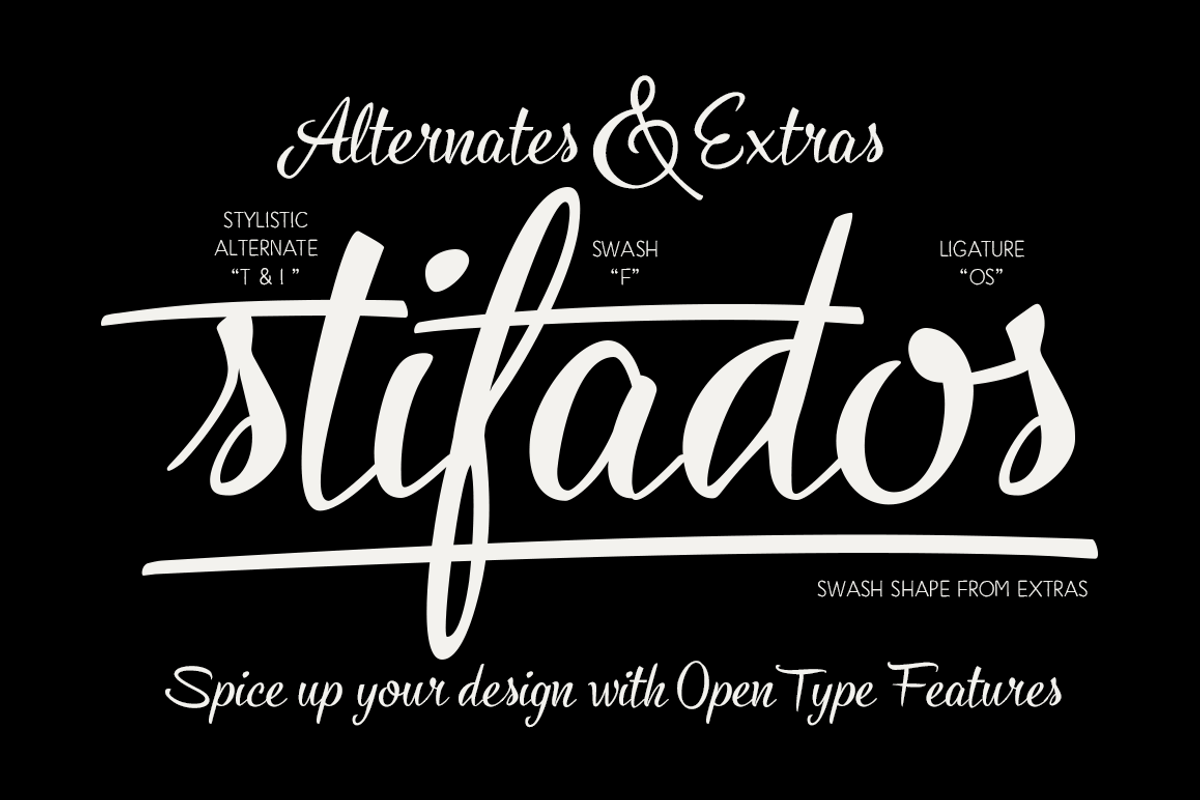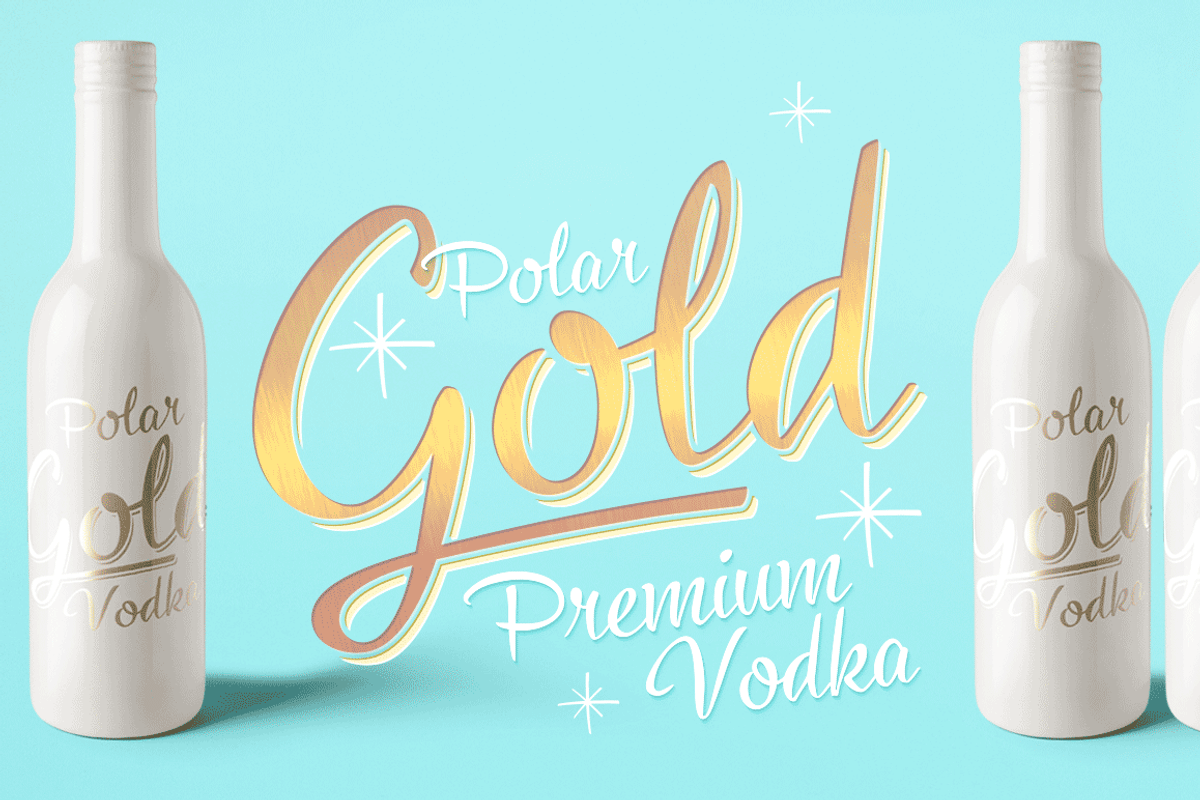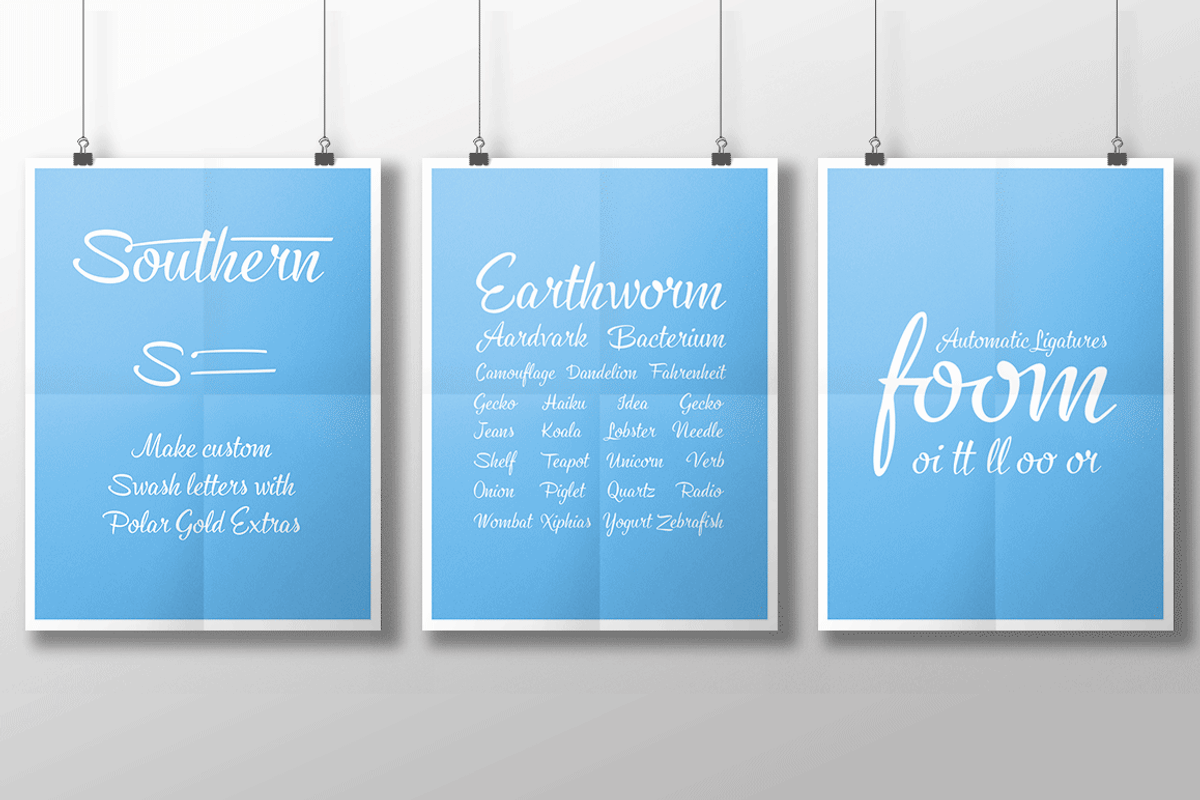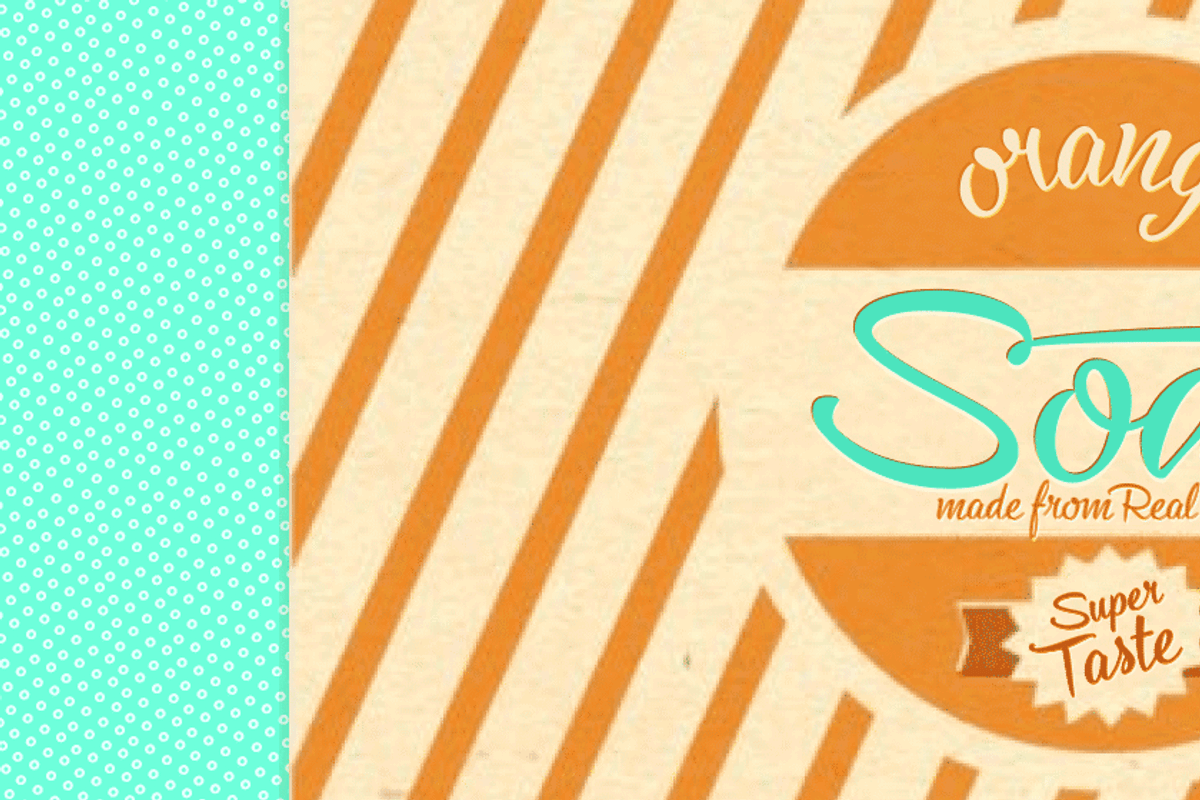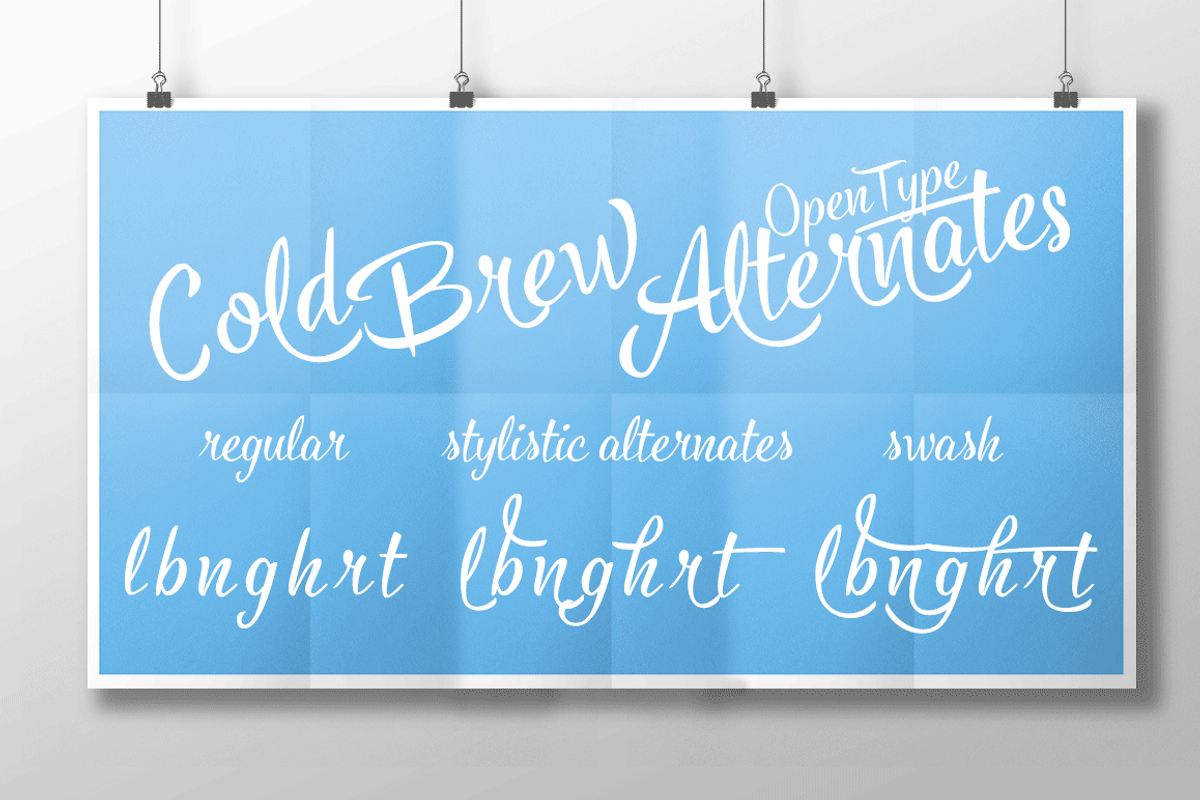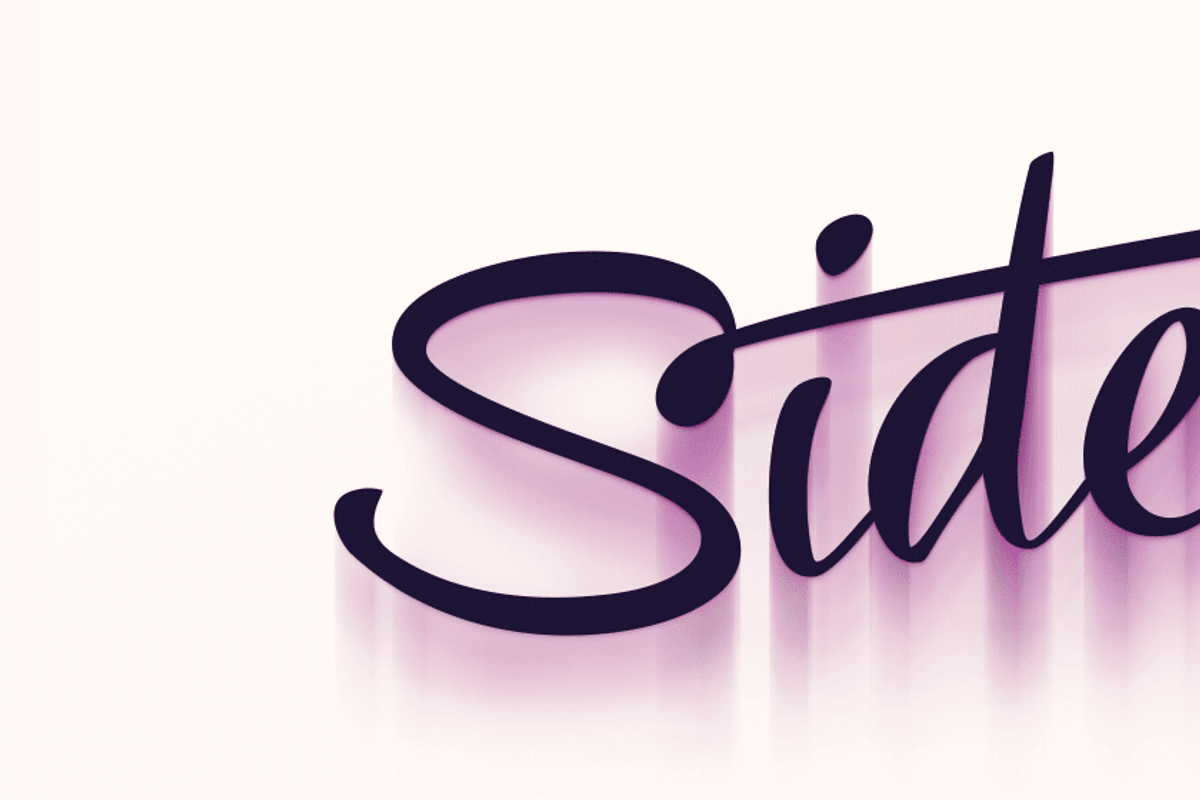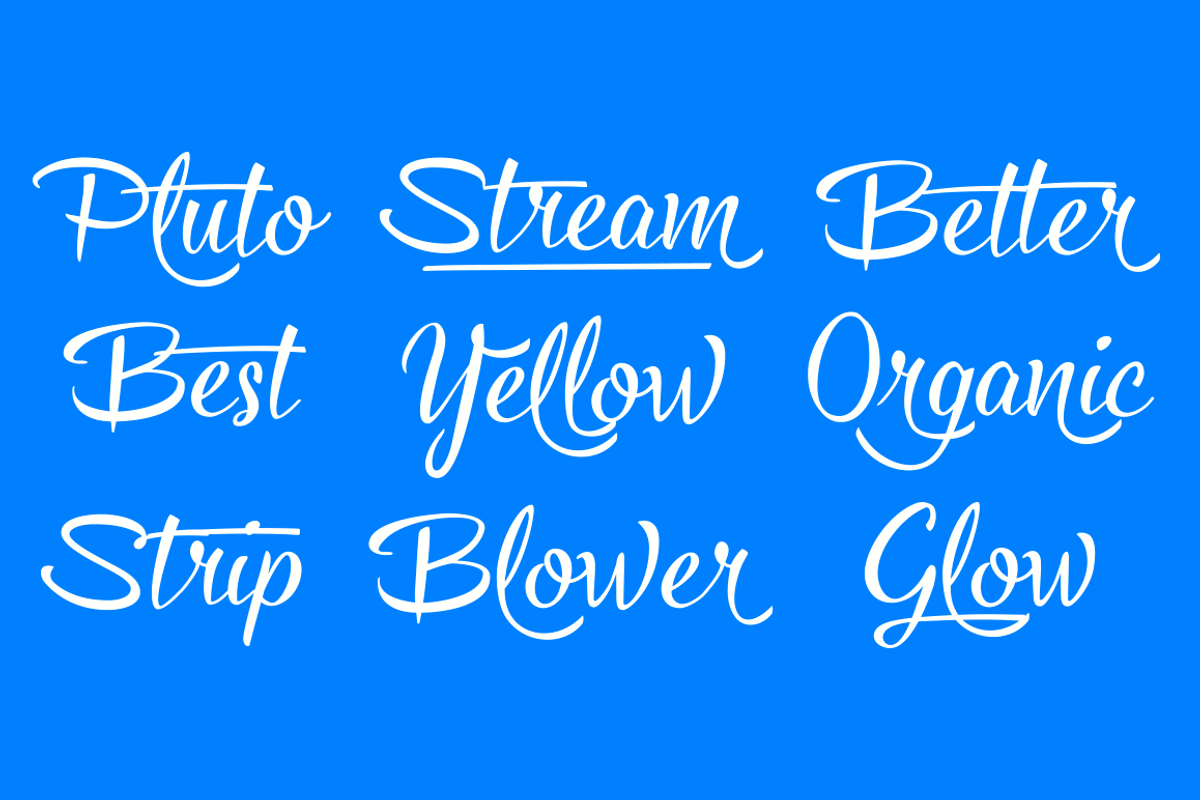
Cold Brew font trio +extras -45% off by Fenotype is a font selected for branding, posters, packaging, typography.
- Cold Brew is equipped with OpenType features to give you tools for custom-looking design: turn on Stylistic Alternates or Swash in any OpenT
- Combine Extras with uppercase letters or use them as underline or just plain extra strokes to emphasise your words.
Cold Brew font trio +extras -45% off by Fenotype fits naturally into Branding, posters, packaging, typography.